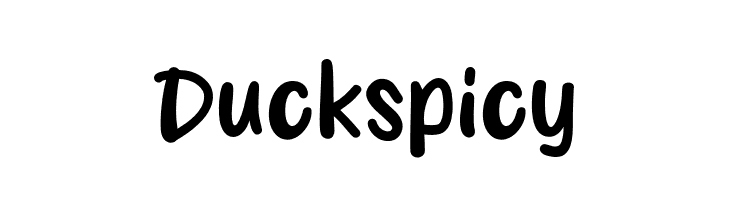
A playful, bold handwritten font with smooth, rounded edges.
A playful, handwritten font with bold, rounded strokes.
A playful, casual handwritten font with smooth, rounded strokes.